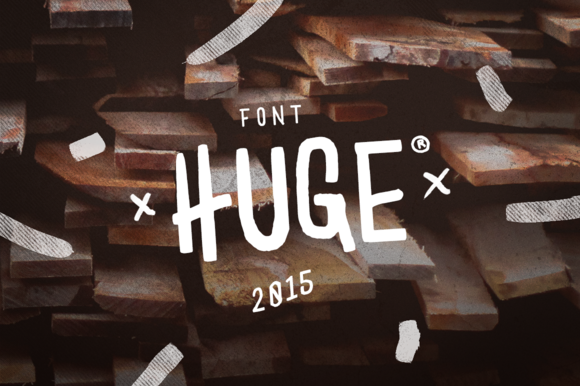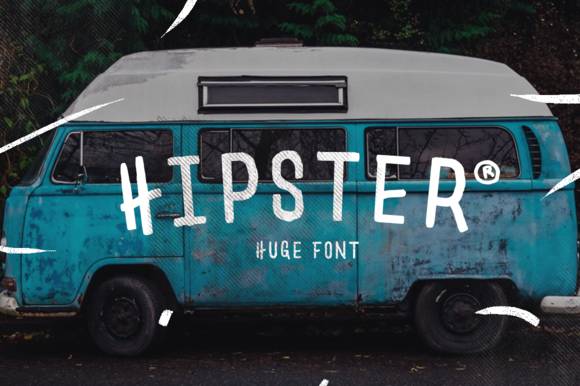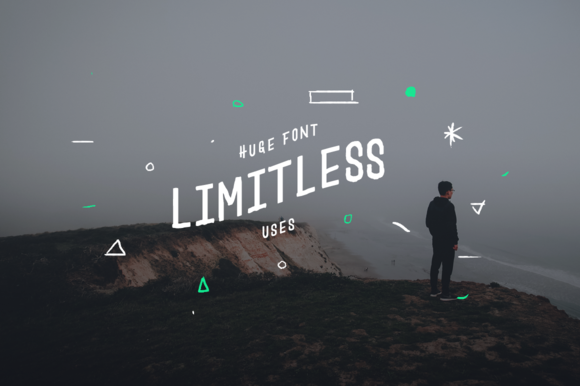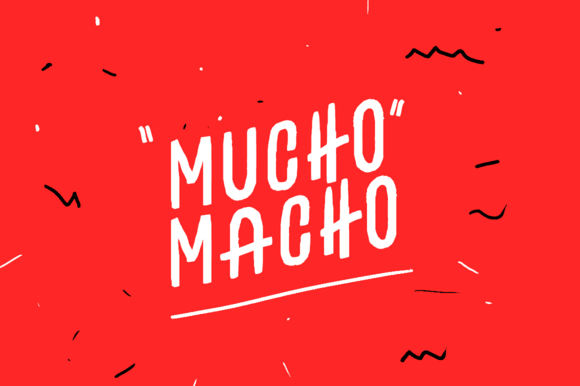
Huge Font
“Huge” is a font inspired by the Mexican urban lettering, an irregular, raw and bold font perfect for cartels, logotypes, and advertising designs.